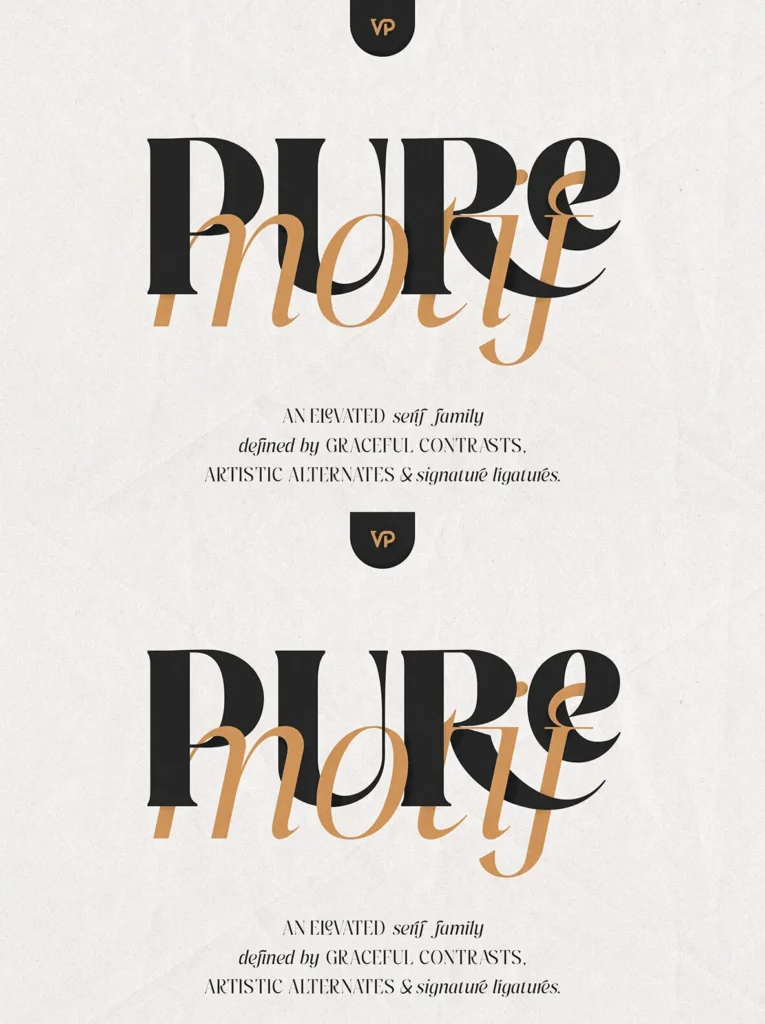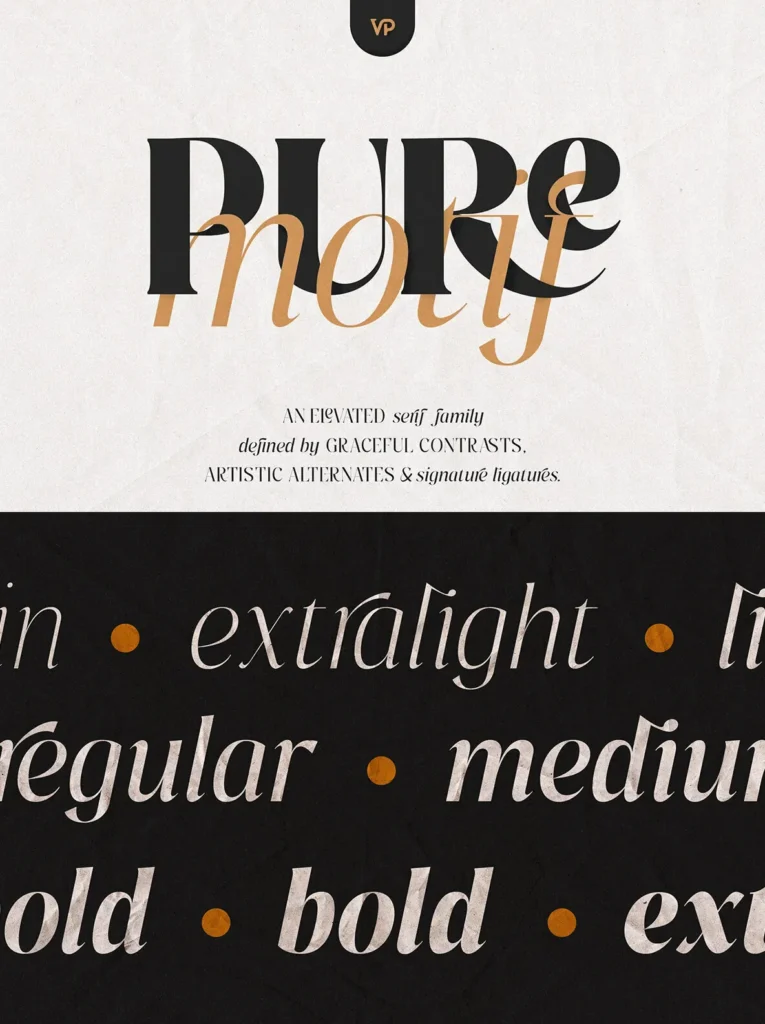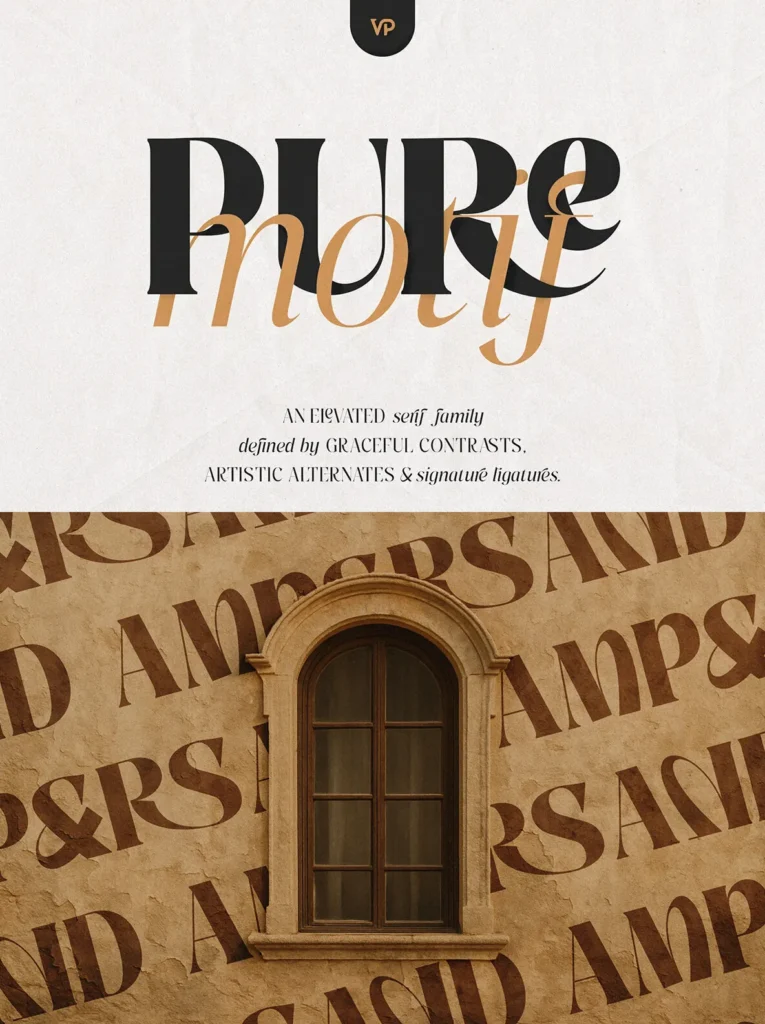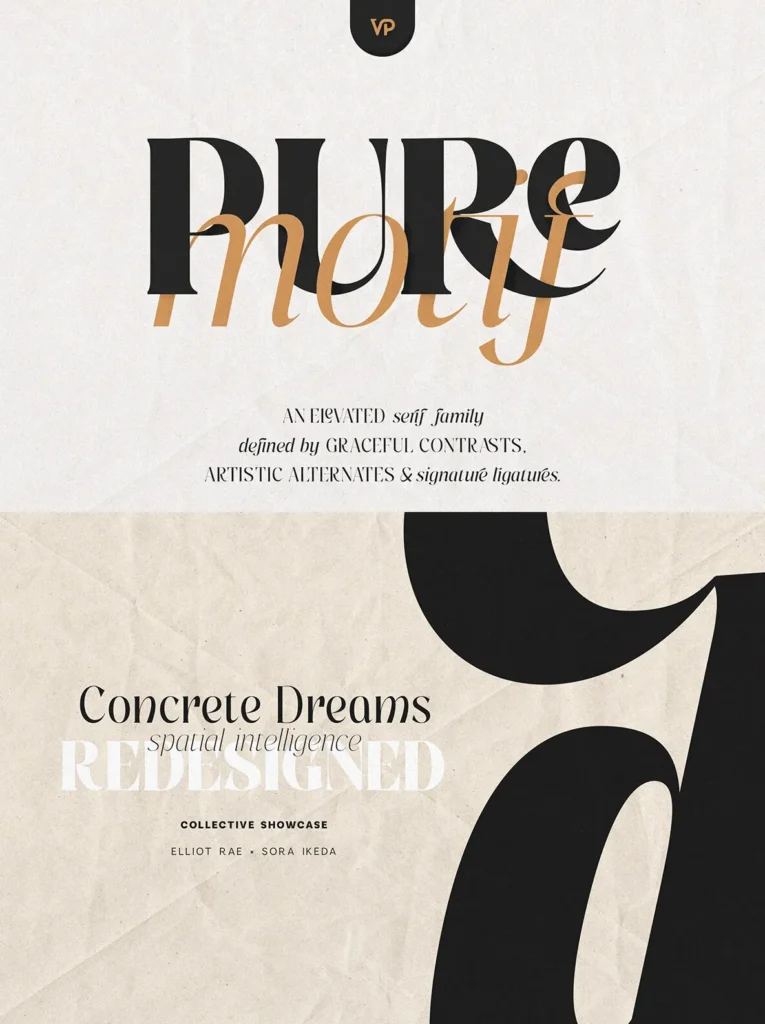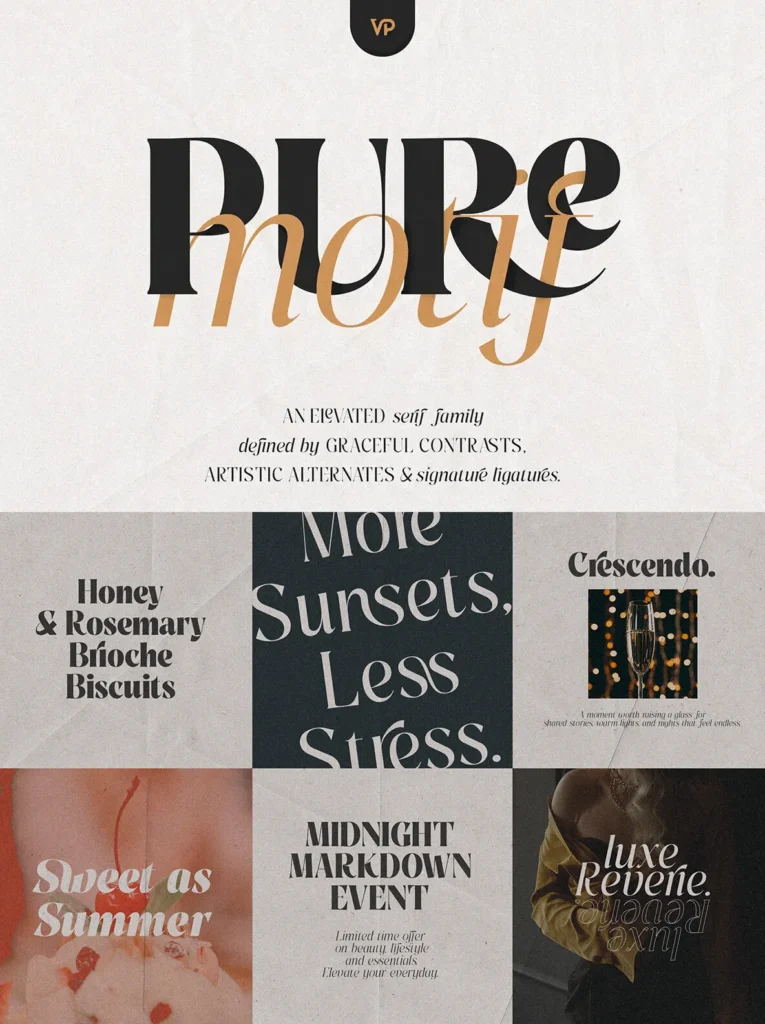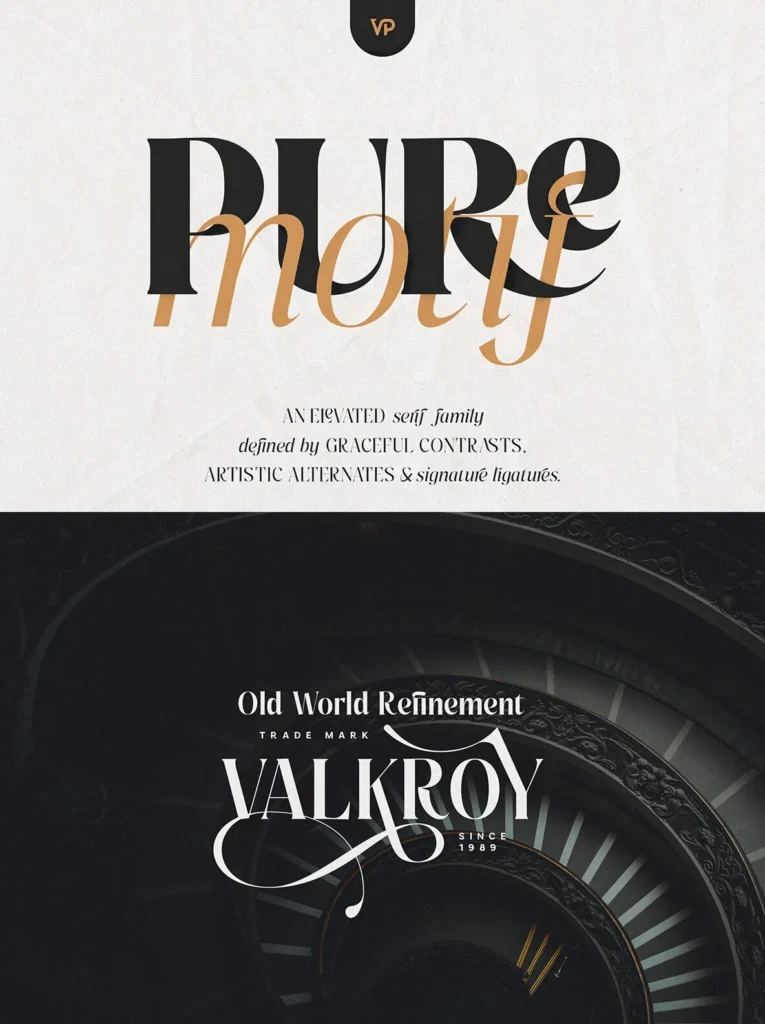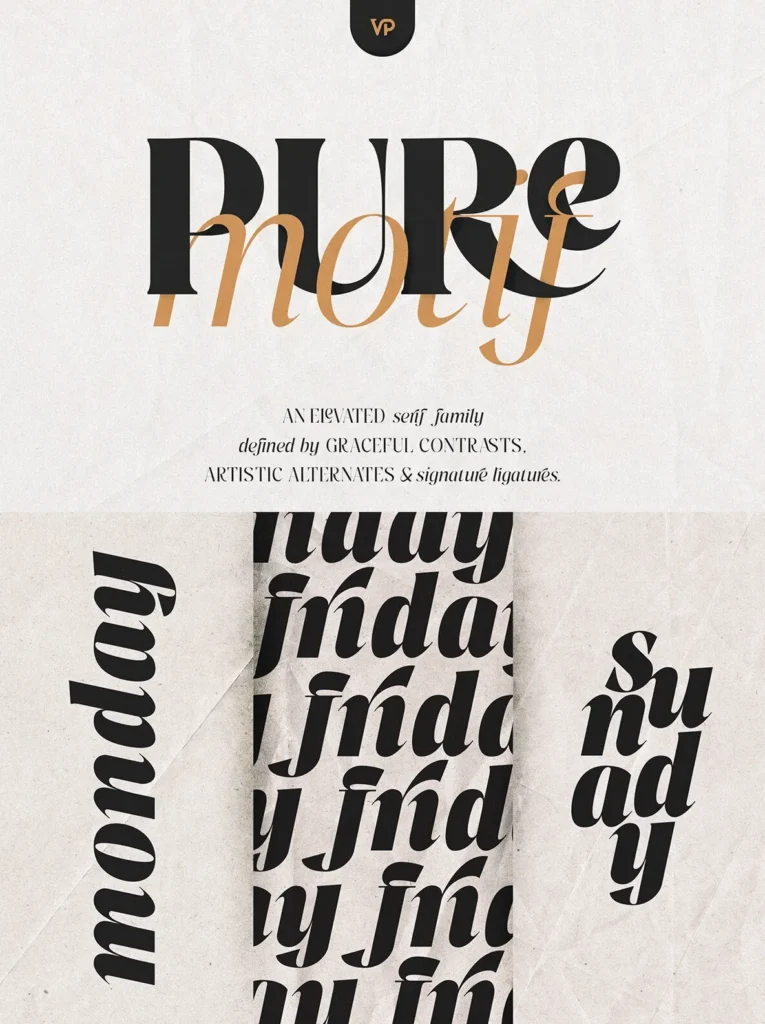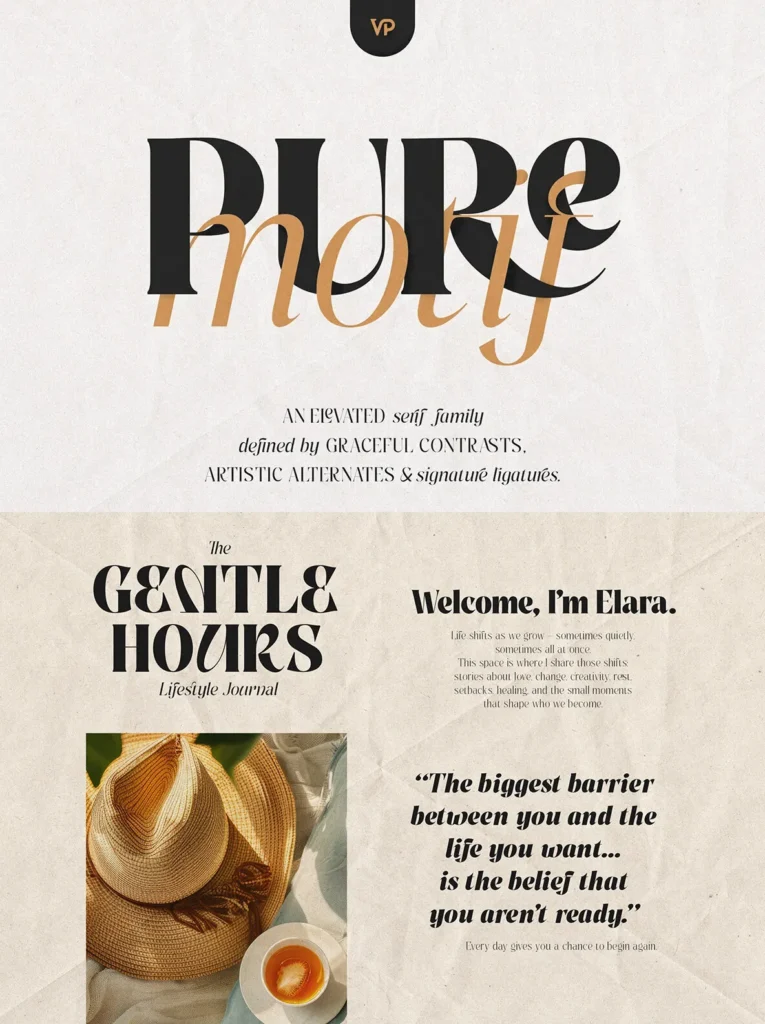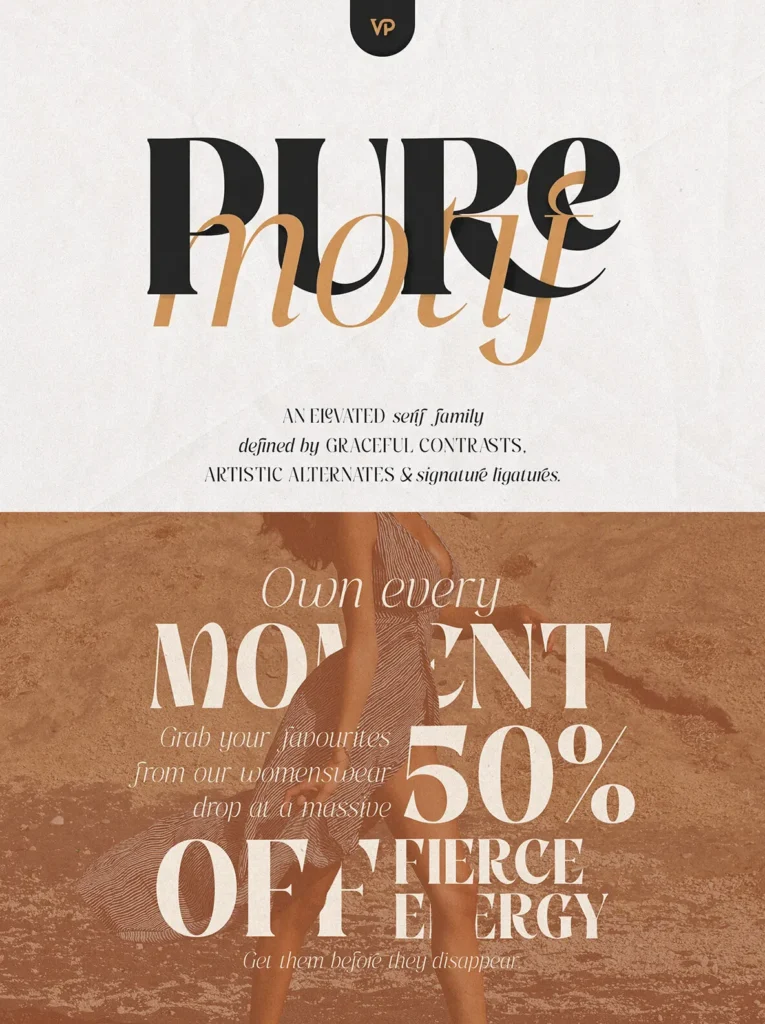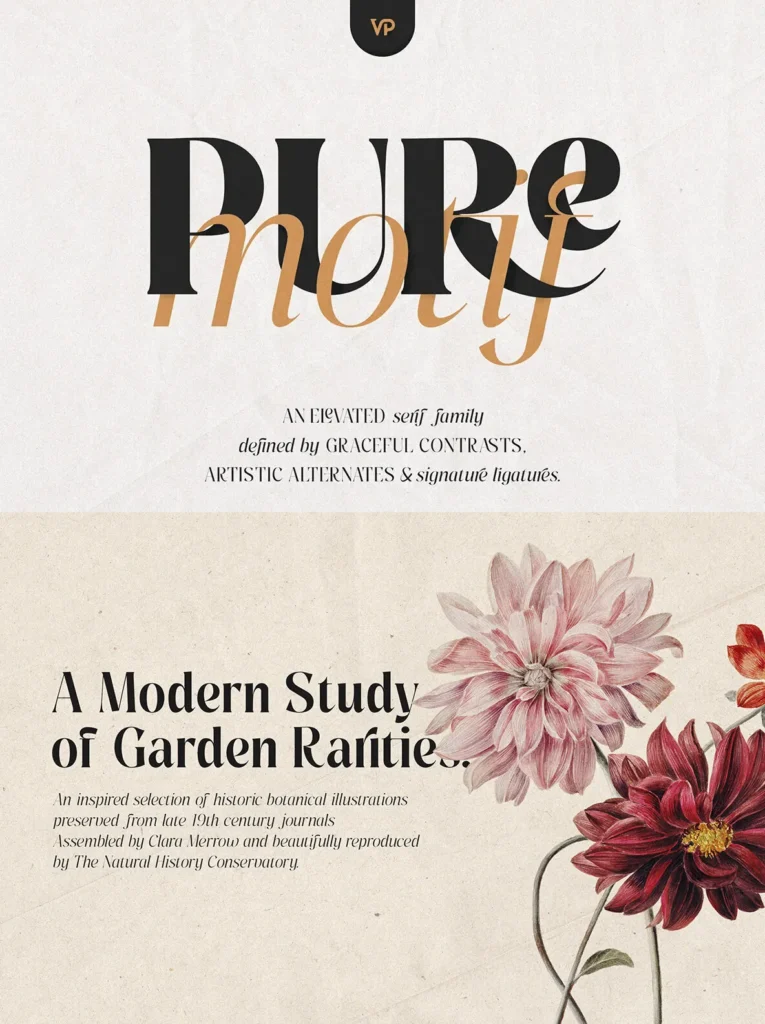
Pure Motif: Poised Serif for Editorial Brands
Designed by VP Creative Shop, this modern serif family balances careful craftsmanship with present-day design sensibilities. It offers a palette of expressive voices—sharp structure paired with expressive motion—well suited to work that calls for sophistication, nuance, and editorial beauty. From delicate thins to the grounded presence of bold weights, it brings narrative depth to branding, packaging, and editorial design.
Each letterform is drawn for clarity and style, with fluid curves, sculpted terminals, and a distinctive rhythm that holds up across print and digital applications. A set of alternate glyphs, ligatures, and true matching italics extends creative options for individualized typographic compositions. Its multilingual support covers over 87 languages, making it a strong choice for global brands and editorial platforms.
Features
9 weights ranging from Thin to Black
Variable style for tailored design needs
True matching italics with expressive slant
Extensive alternates for stylistic variety
Signature ligatures for fluid, bespoke wordmarks
Comprehensive Latin language support
Professional kerning, spacing, and diacritics
Optimized performance across print and digital
Ideal Applications
Luxury branding and boutique identities
Editorial layouts and magazines
Beauty and skincare packaging
Fashion campaigns and lookbooks
Artisan products and gourmet labels
Invitations and stationery
Social media visuals
Lifestyle and wellness brands